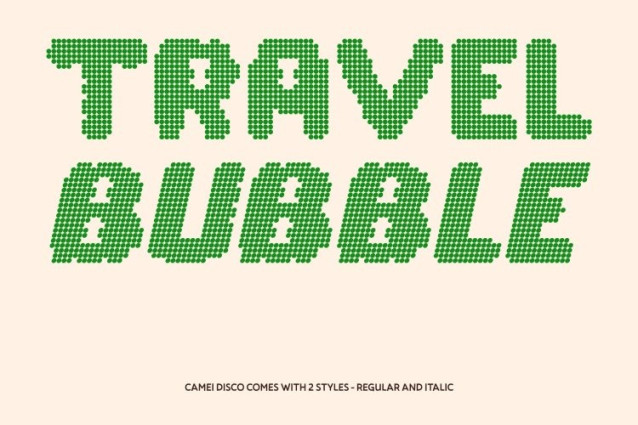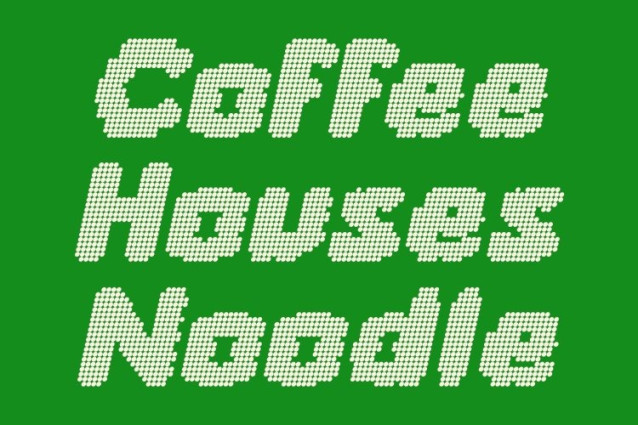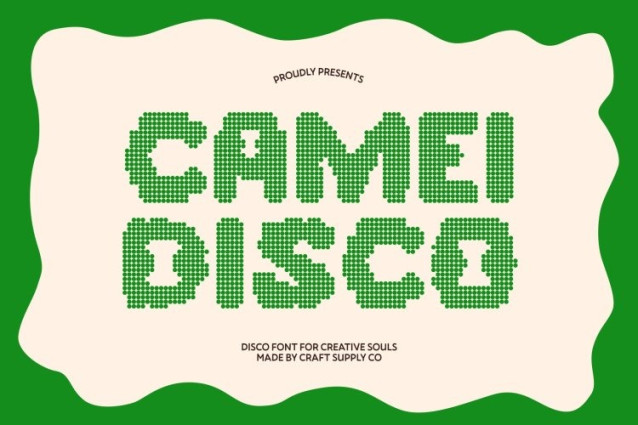
Camei Disco Font
Camei Disco Font This is a bubble-style display font featuring cute, rounded, and funky letterforms filled with joyful personality. Its soft, inflated shapes feel light and bouncy, while a disco-inspired rhythm adds movement and sparkle like colorful bubbles floating under flashing lights.
Eye-Catching and Full of Character
Designed to grab attention instantly, this font shines in headlines, banners, and bold display settings. Its cheerful bubble forms create a memorable visual impact, making every word feel fun, friendly, and impossible to ignore.
Versatile, Lively, and Engaging
While playful at heart, this font remains versatile across branding, digital designs, posters, and creative content. Its expressive shapes help messages stand out clearly, delivering charm and energy without sacrificing readability in display use.
Perfect for Fun, Festive, and Creative Projects
Ideal for logos, posters, websites, event visuals, and playful branding, this font adds a distinctive touch of happiness and celebration. It’s the perfect choice for designs that want to feel cute, energetic, and full of disco-inspired joy.